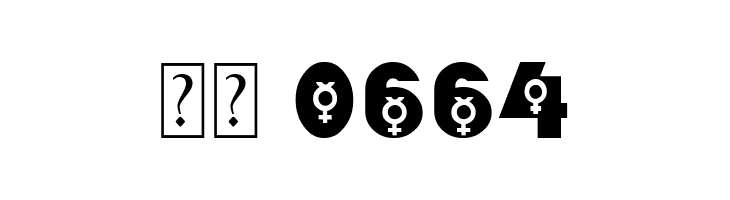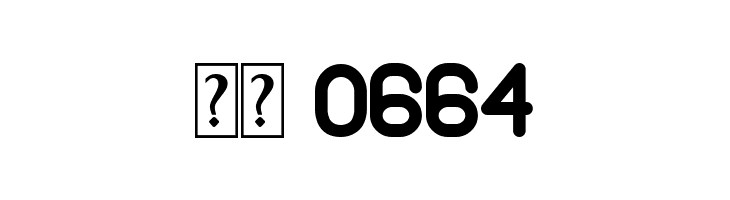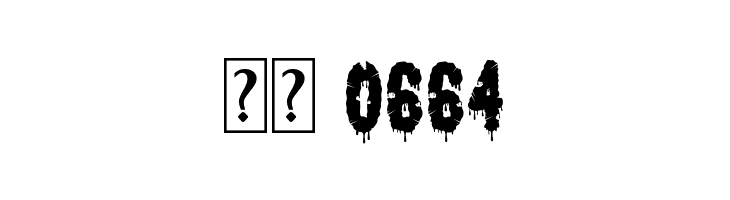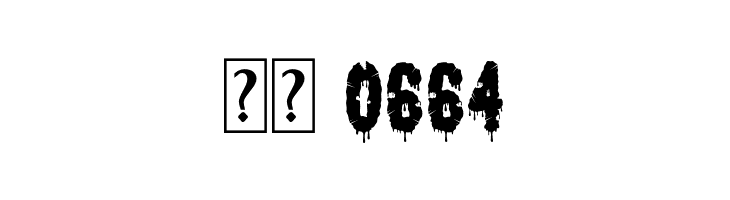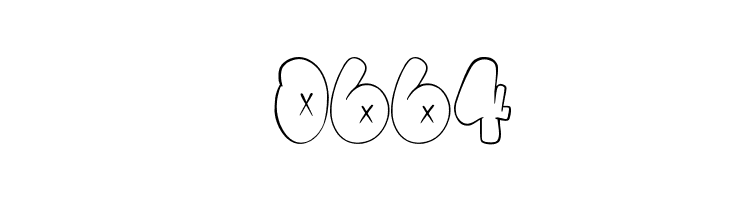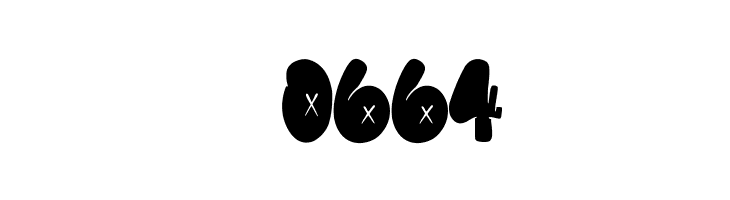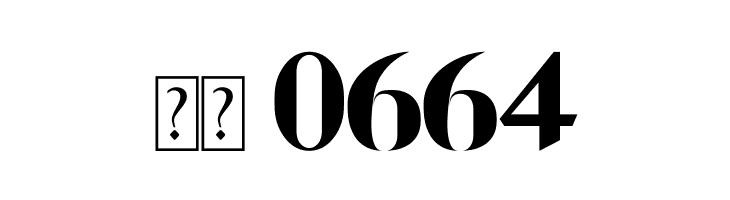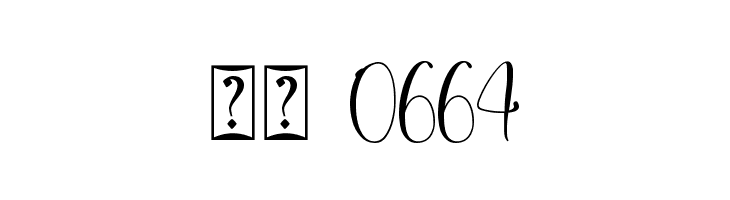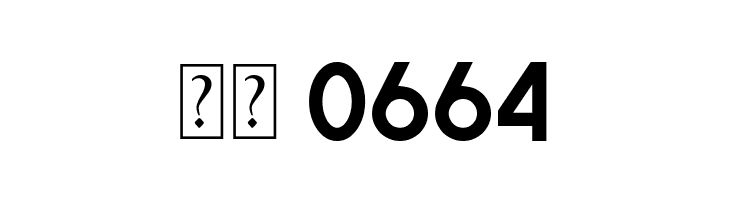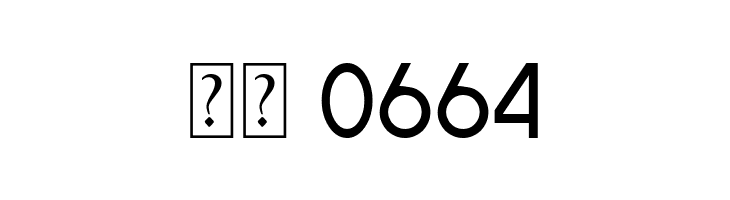
A bold, playful, and blocky font with a cartoonish style.
A playful, bold, and bubble-like font with a hand-drawn aesthetic.
A modern, artistic font with rounded and angular elements, offering a playful yet sophisticated style.
A playful, doodle-inspired font with unique, hand-drawn characters.
A bold, modern font with uniform strokes and strong visual impact.
A bold, distressed font with a rough, vintage texture.
A bold, tribal-inspired font with sharp, angular strokes and intricate curves.
A casual, elegant handwritten font with fluid, connected strokes.
A decorative and eclectic font with a mix of bold and ornate styles.
A modern, elegant script font with a playful, handwritten style.
Casual handwritten script font.
A modern, geometric font with clean lines and a uniform appearance.
A bold, decorative font featuring gender symbols within each character.
A bold, rounded font with a playful and modern style.
A monospaced serif font with uniform character width and classic design.
A decorative and artistic font with intricate patterns and a bohemian style.
A bold, high-contrast font with geometric shapes and sharp angles.
A smooth, rounded Hiragana script font with a modern yet traditional feel.
Cartoonish, illustrative font themed around Hispanic and Spanish culture.
A bold, dripping font with a horror-themed, dramatic style.
A bold, dripping font perfect for horror or Halloween themes.
A bold, rounded font with a playful and approachable style.
A modern, geometric sans-serif font with uniform stroke widths.
A bold, geometric font with uniform stroke width and strong presence.
A bold, geometric sans-serif font with clean lines and modern appeal.
A bold, geometric font with uniform stroke widths and a modern aesthetic.